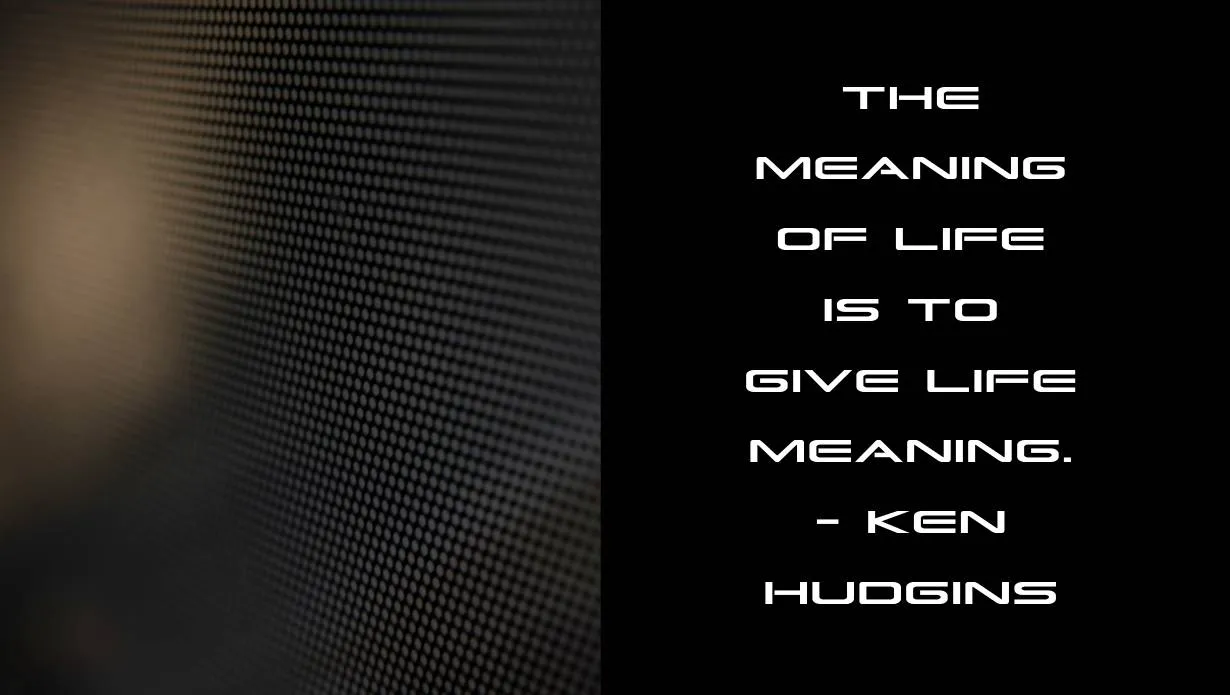
In this post, we introduce a marvelous typeface that goes by the name Corvette Font. Daniel Zadorozny is the designer of this cute typeface. It belongs to the Fancy Fonts. For the first time, it is used for the sports car brands name Chevrolet Corvette title.
It is a beautiful font that features an elegant design. It is perfect for branding, advertising, and other creative projects.
| Name | Corvette Font |
| Designer | Daniel Zadorozny |